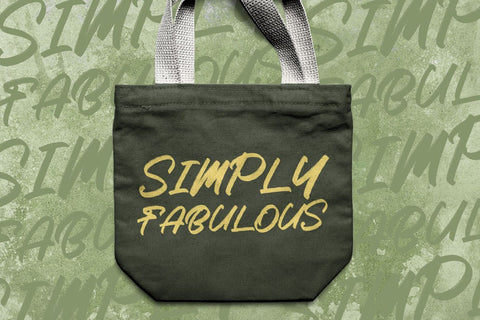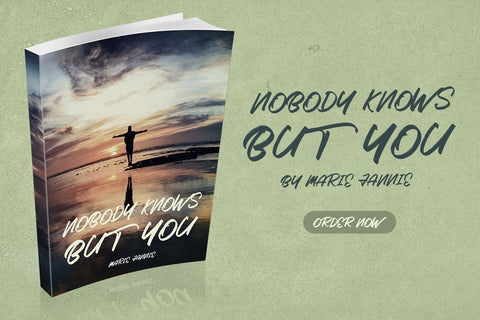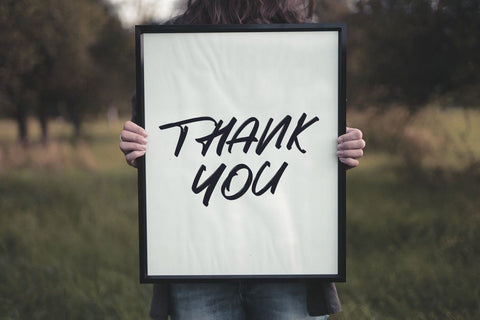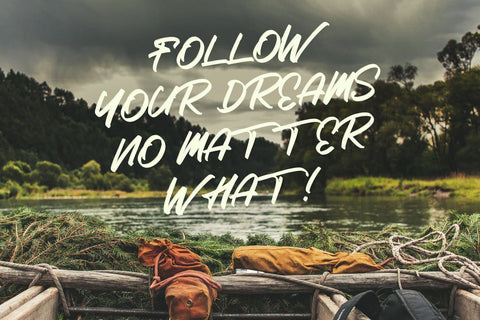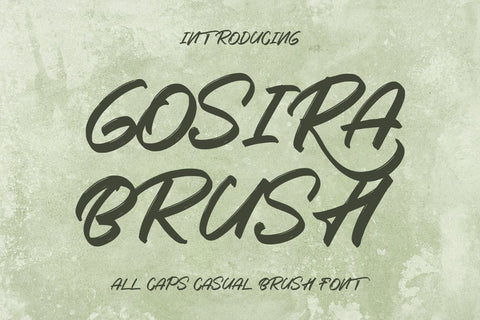
Gosira Brush Font
Gosira Brush is a casual display font, created by using a dry brush pen. This font is the perfect fit for all of your logos, branding, social media, and crafty DIY projects.
This font is suitable to use as a logotype, product designs, label, watermark, social media posts, apparel, invitation, signboard, sports club, motor/car, special events or anything that need handwriting taste.